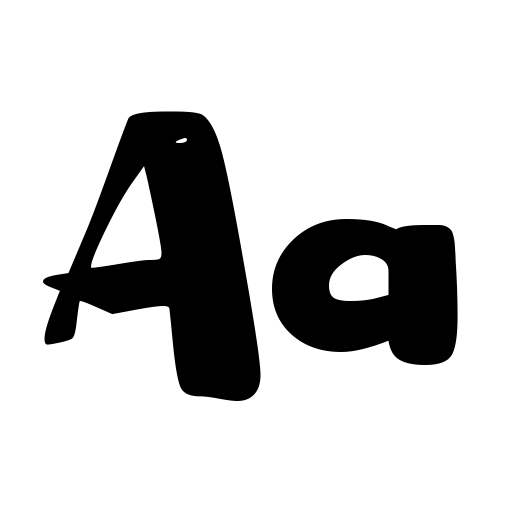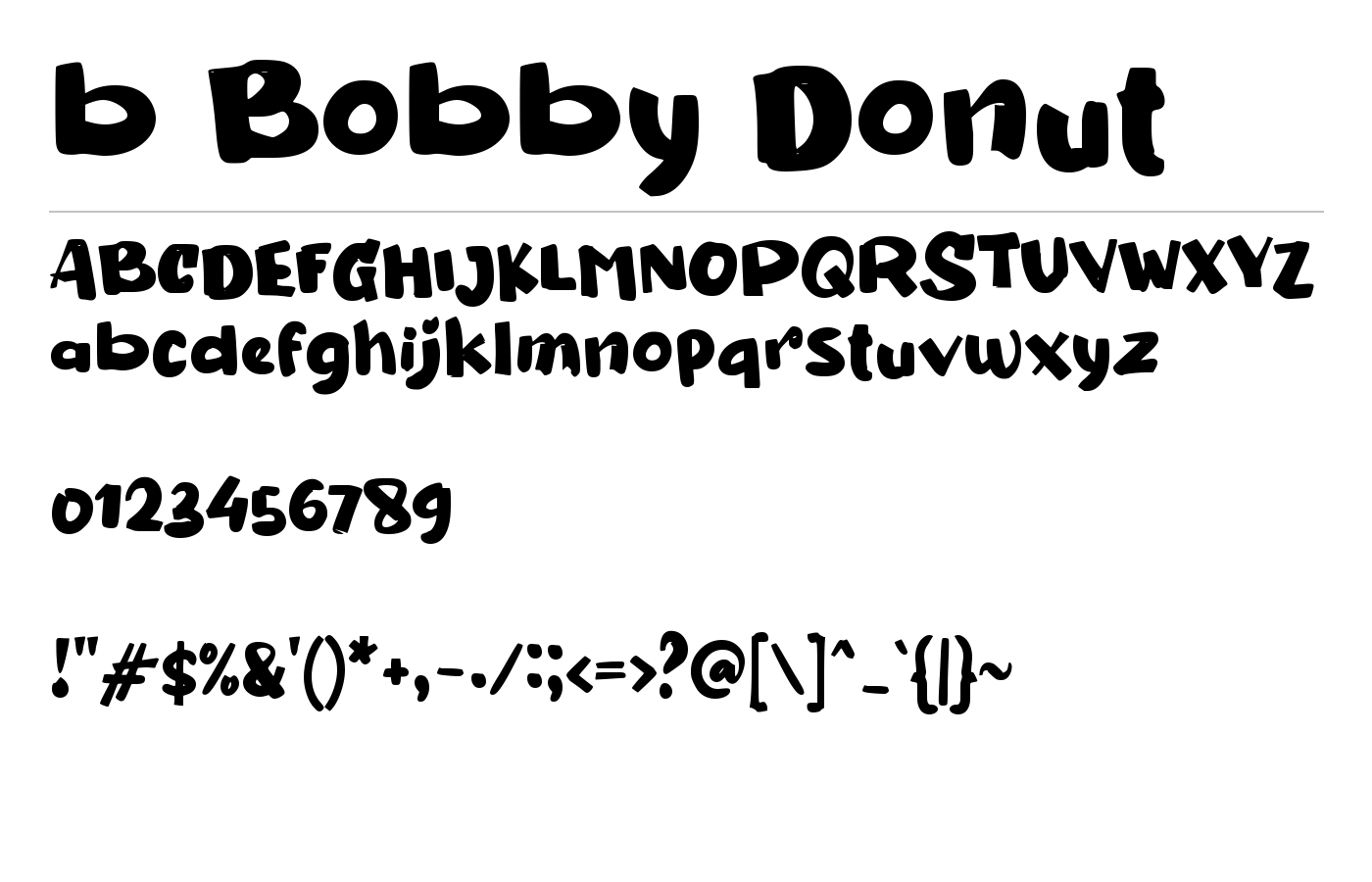
Bobby Donut is a playful and bold sans serif font with a friendly, hand-drawn feel. Its irregular, chunky letterforms and casual curves give it a fun, approachable personality, perfect for designs aimed at children or lighthearted branding. This font works well in logos, posters, and packaging where a whimsical and informal style is desired.
b Bobby Donut Font
About b Bobby Donut Font